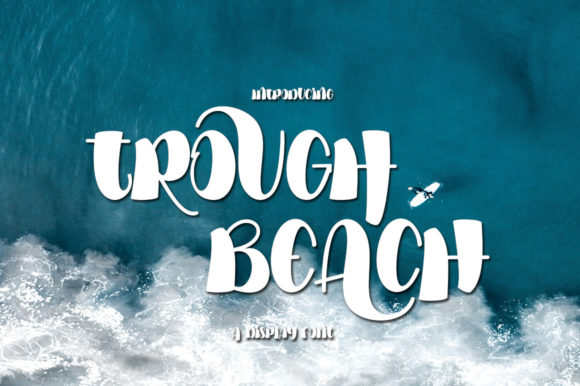
Step into the realm of typography with Trough Beach Font, a remarkable display font crafted by JoeeCreative. This masterpiece was meticulously designed to captivate the eyes of readers and designers alike, leaving an indelible mark on any project. Unlock a world of artistic possibilities with Trough Beach, your perfect font companion for official media such as banners, magazines, newspapers, books, and beyond.
Trough Beach's sturdy structure provides a solid foundation for your creative expressions. Its simple, yet elegant characters exude a sense of sophistication, inviting readers to delve deeper into your content. Whether you seek to craft captivating headlines, engaging articles, or unforgettable designs, Trough Beach rises to the occasion, delivering a visual symphony that resonates with your audience.
Unleash your creativity and explore the depths of Trough Beach's versatility. This font adapts seamlessly to a myriad of design landscapes, effortlessly enhancing presentations, social media posts, logos, and branding materials. Its timeless appeal transcends trends, ensuring your creations remain relevant and visually stunning for years to come.
With Trough Beach, you'll discover a font that speaks volumes. Its strong personality adds depth and character to your words, transforming ordinary text into a captivating narrative. Let your message shine brighter than ever before, leaving an unforgettable impression on your readers.
Trough Beach is more than just a font; it's an artistic journey waiting to be embarked upon. Dive into the realm of endless creative possibilities and watch your designs flourish. Allow Trough Beach to be your muse, guiding you towards typographic excellence. Embrace the beauty of simplicity, the power of structure, and the magic of storytelling.